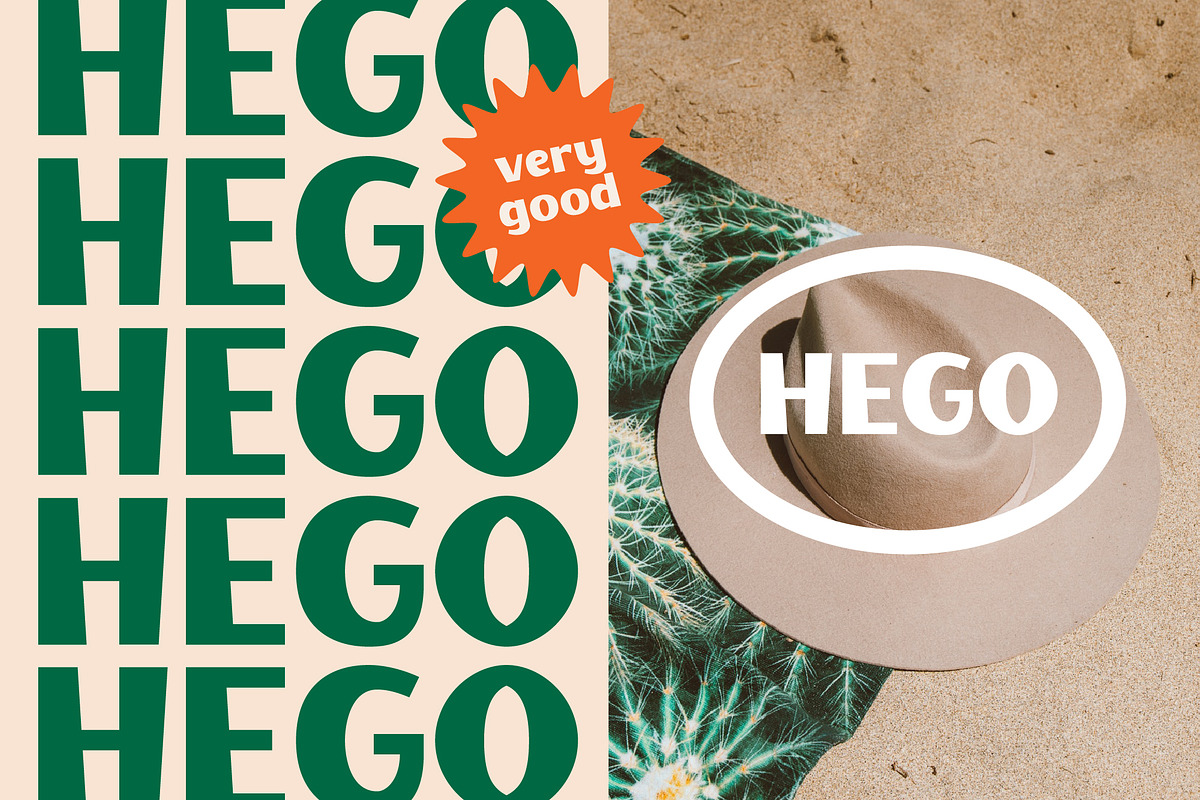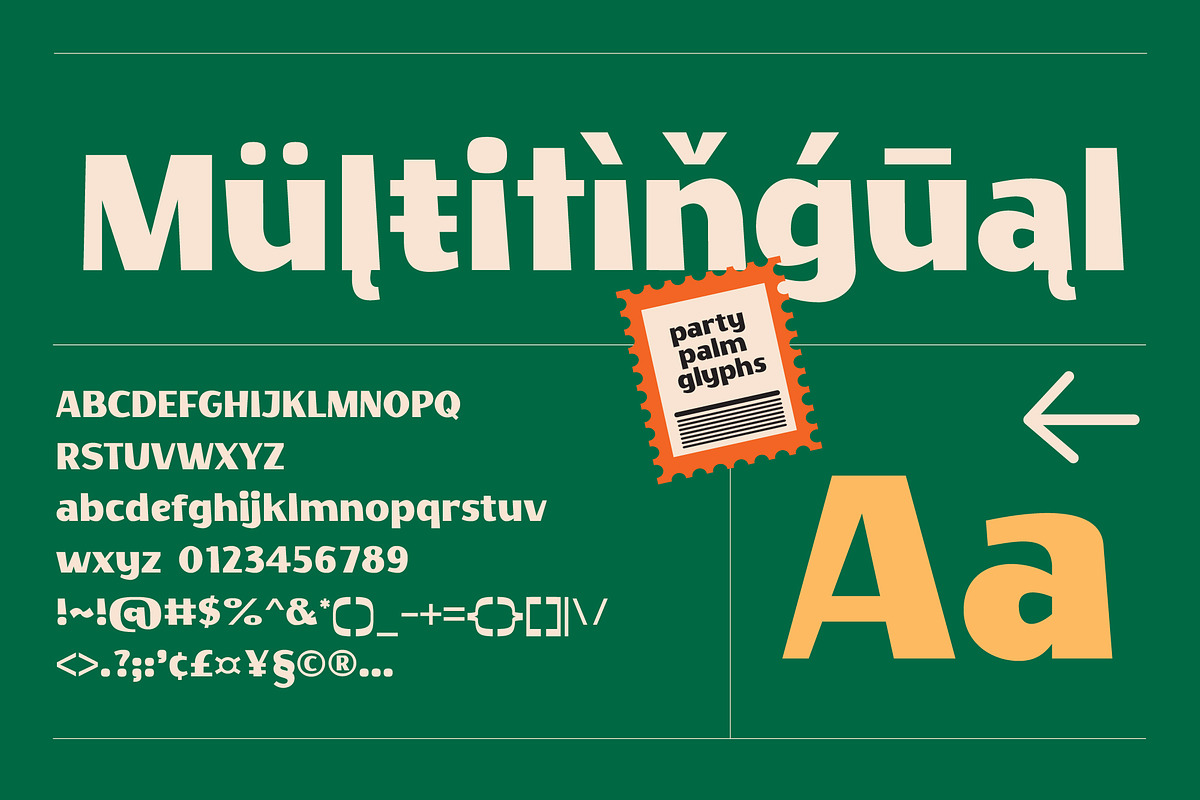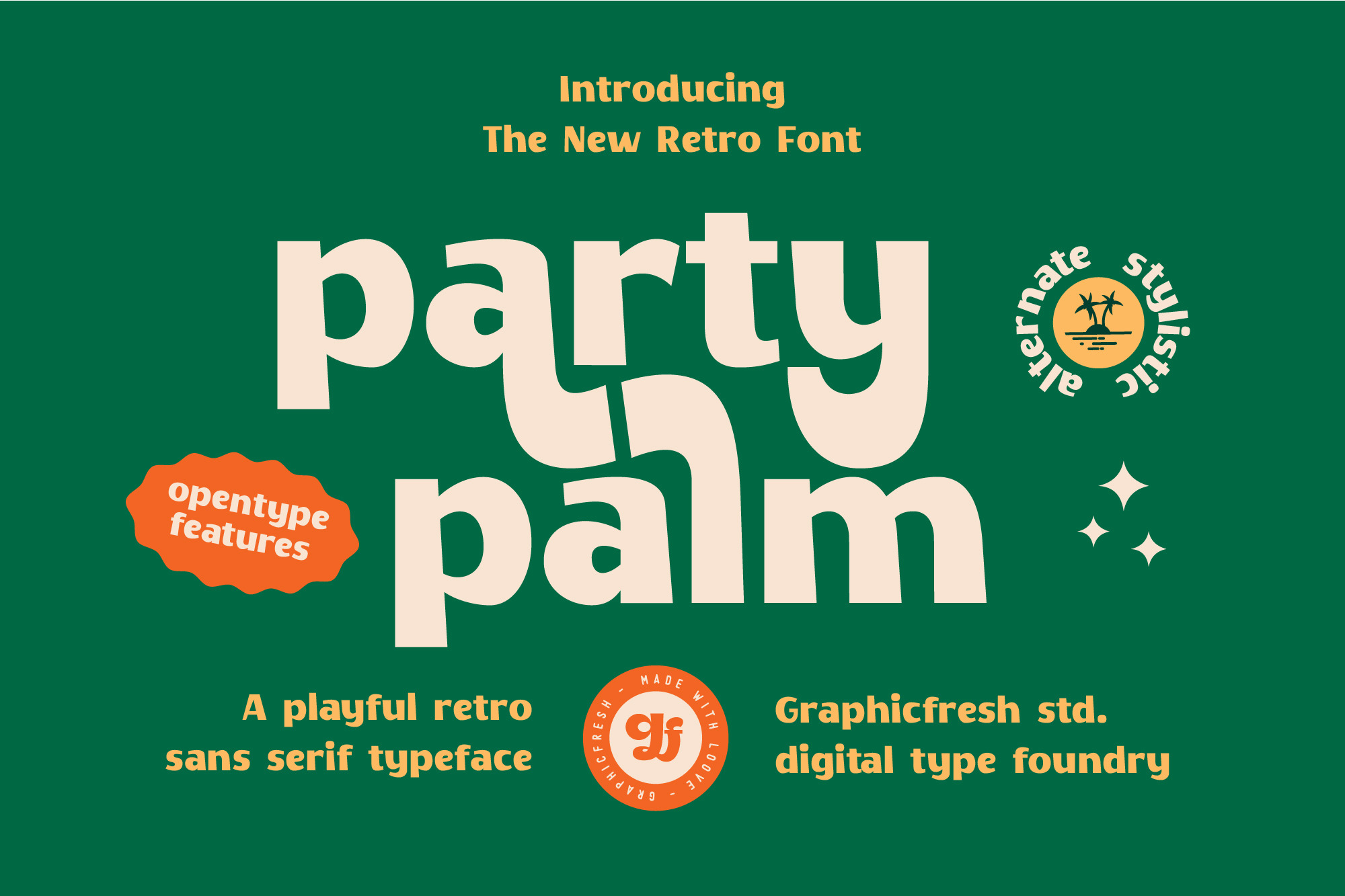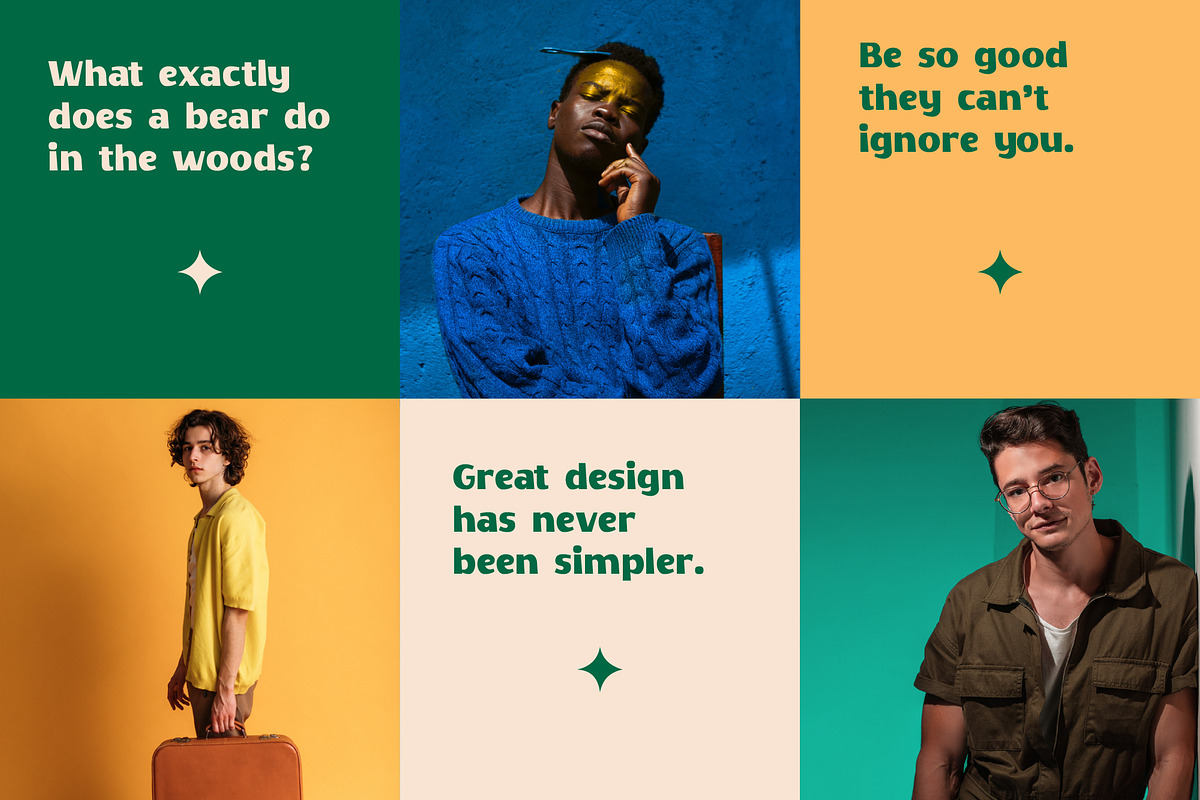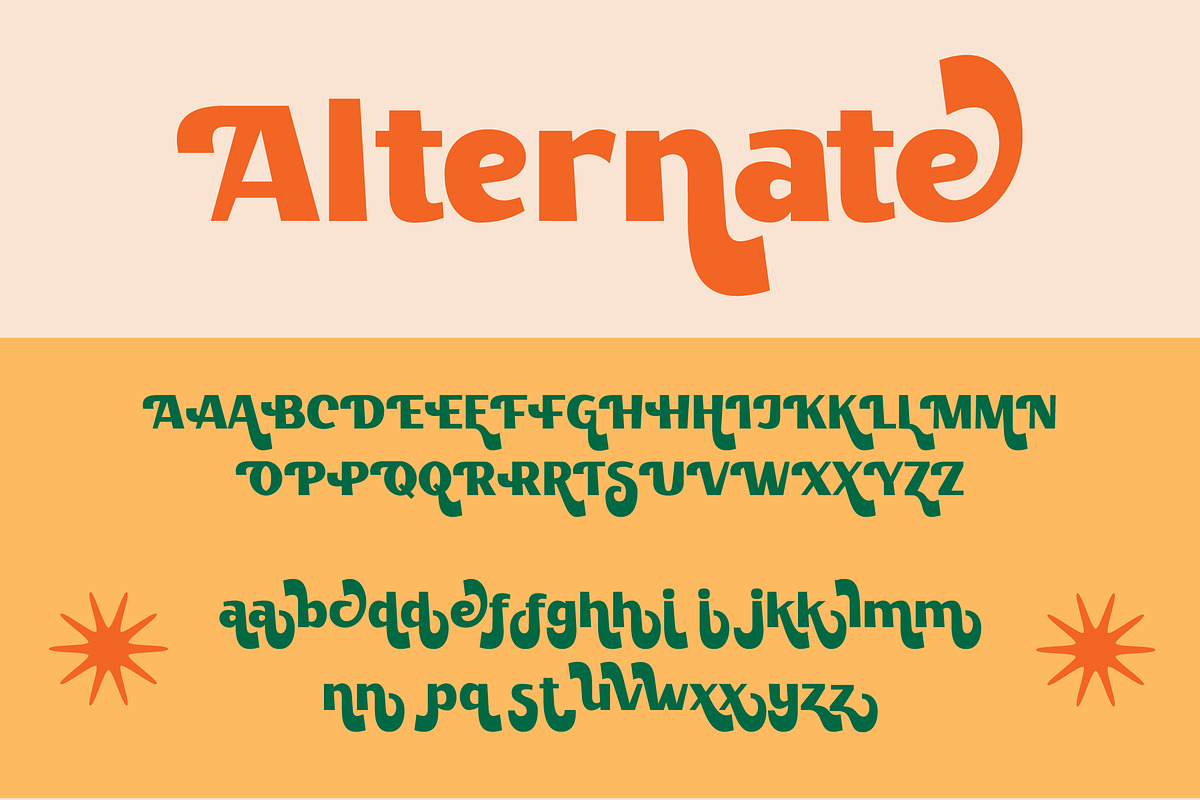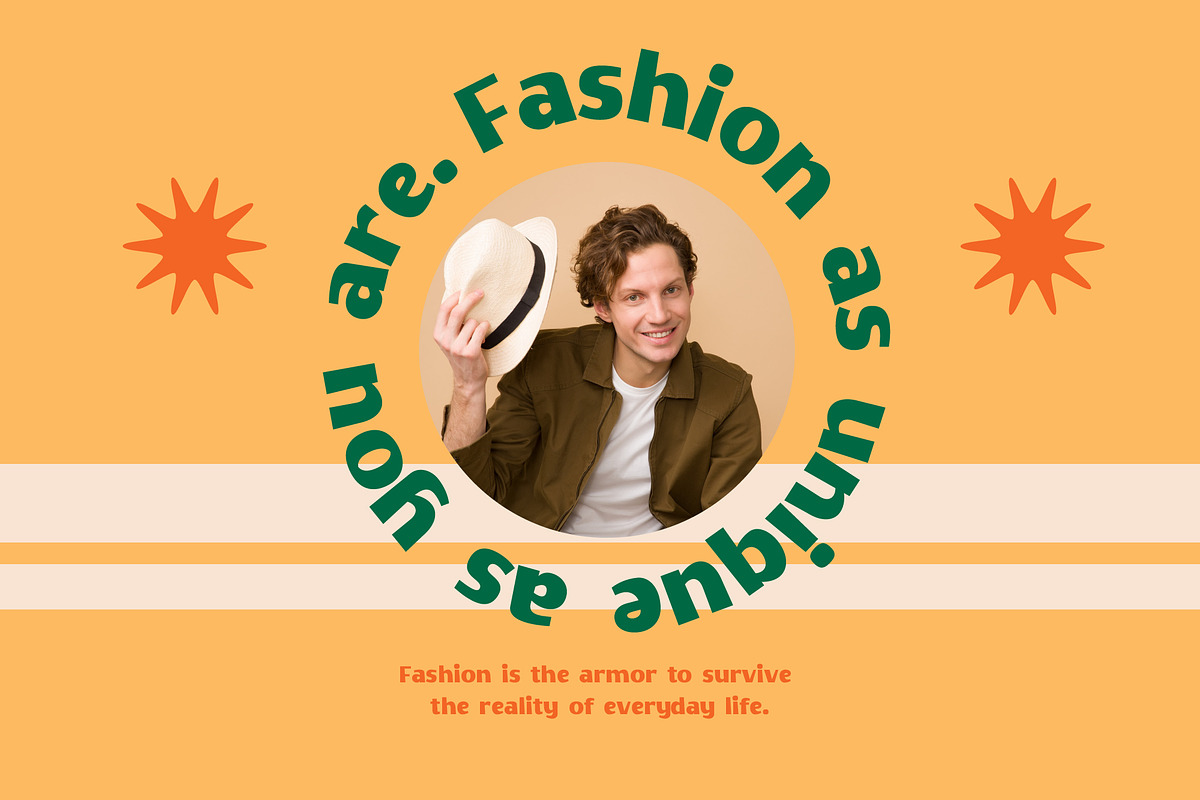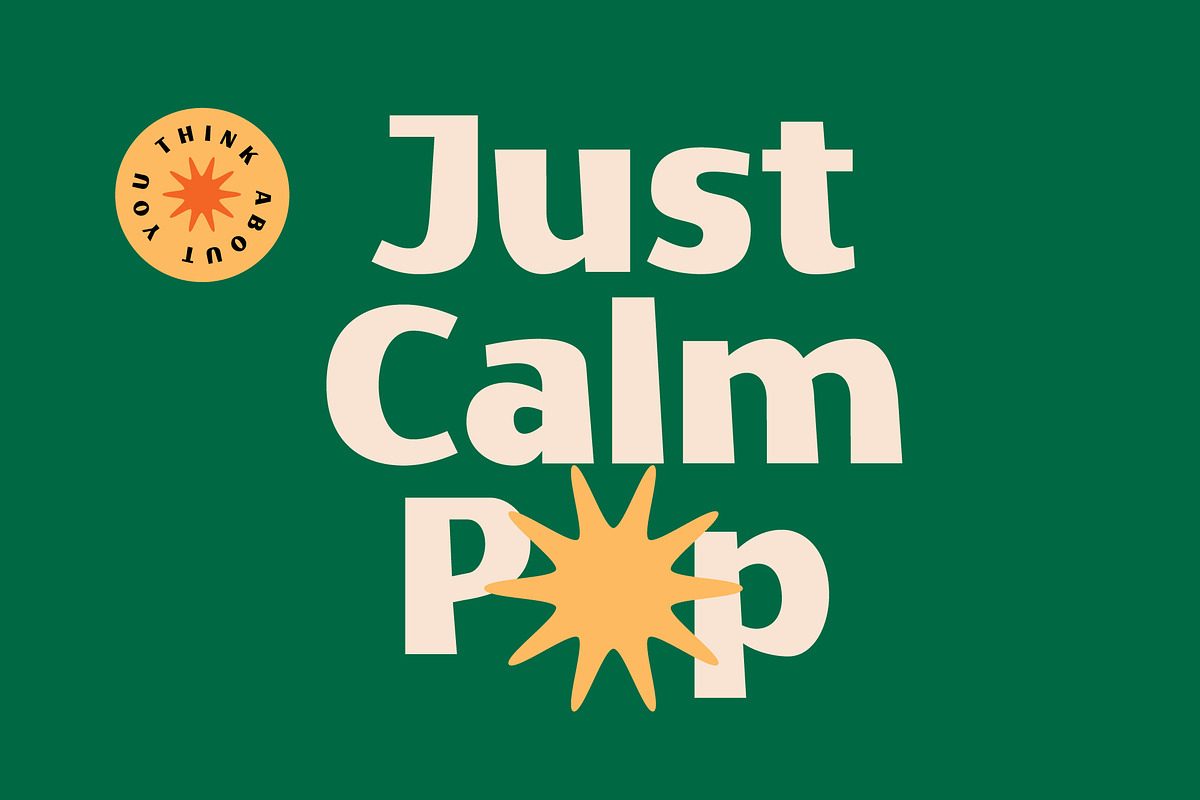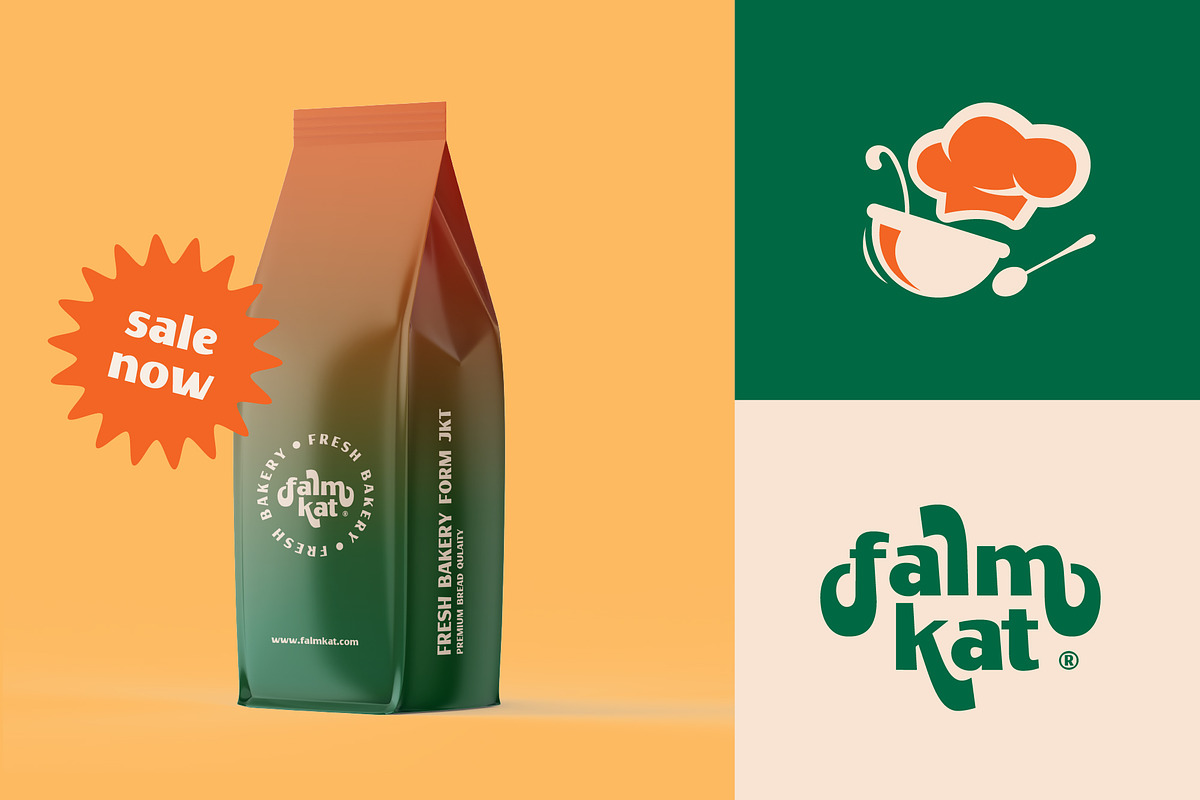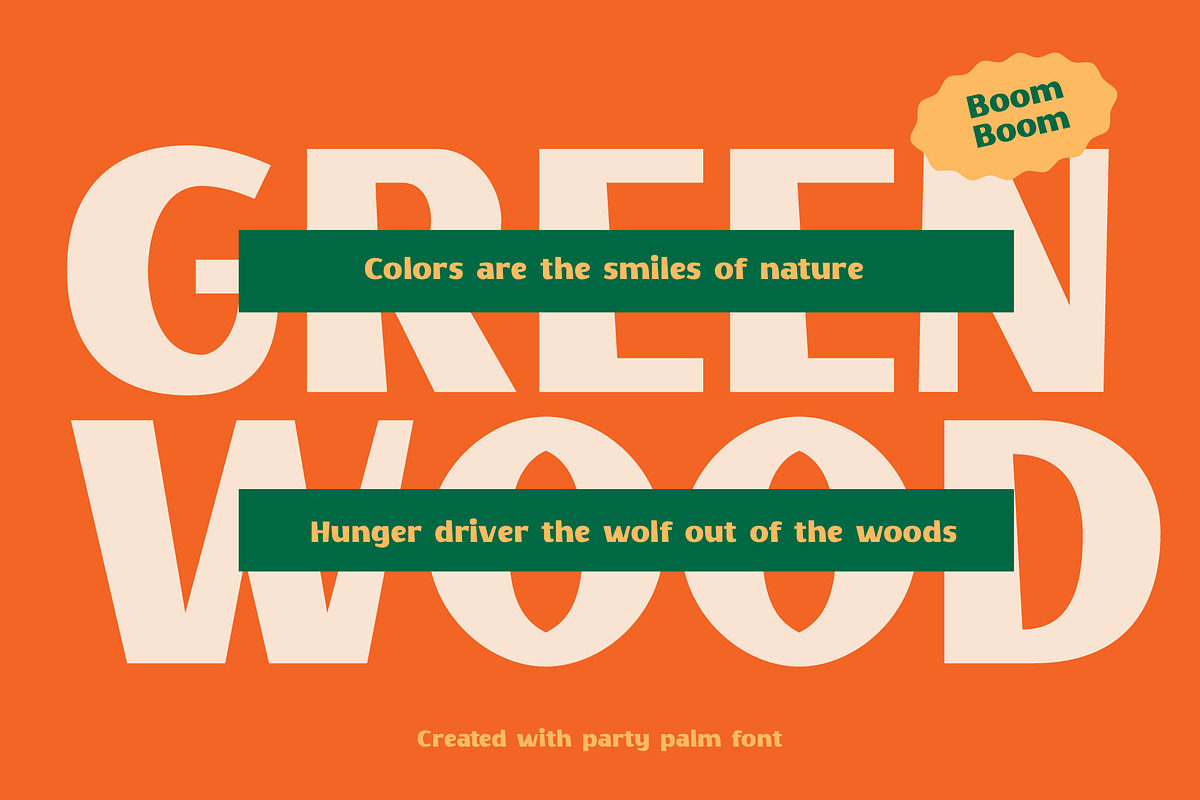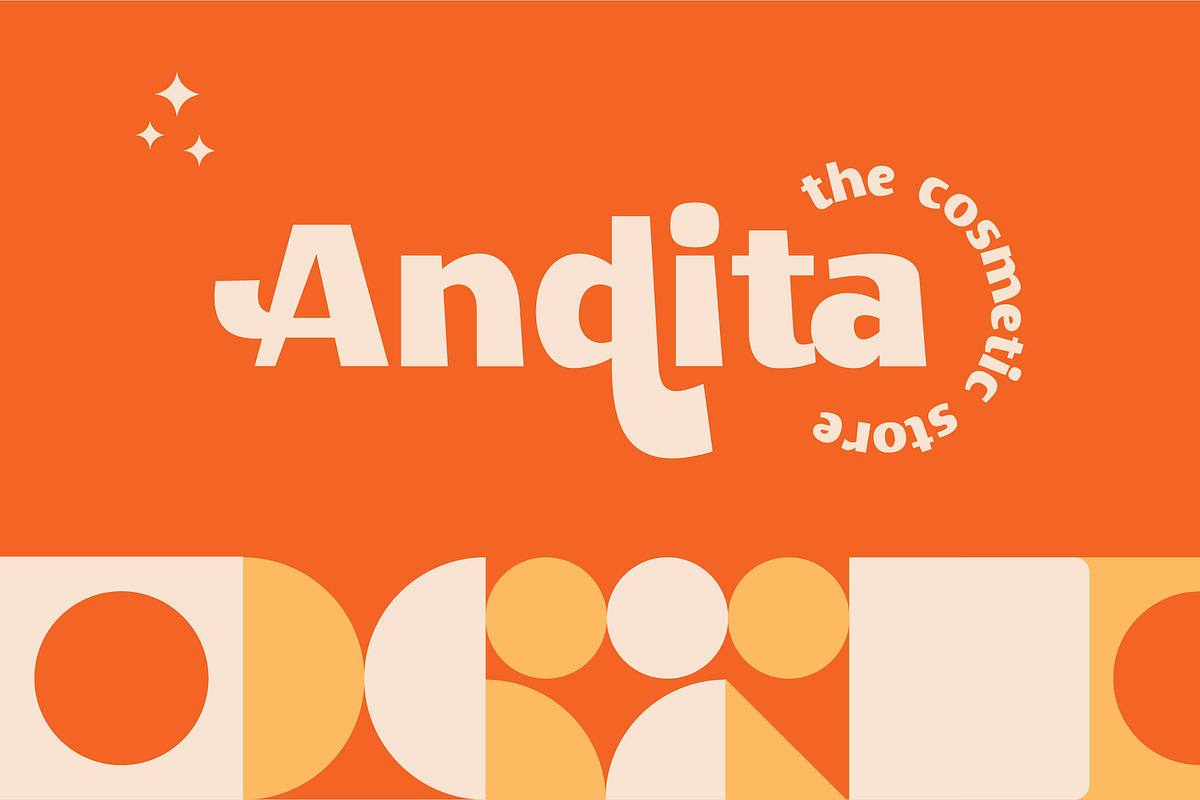
Party Palm Retro Font
Hi everyone, this time we created a new font in retro style. An adaptation of the life of the design industry in the 80s and 90s. We made this so you can reminisce in a classic style. This font looks classic, but a modern and elegant impression is still embedded in it.